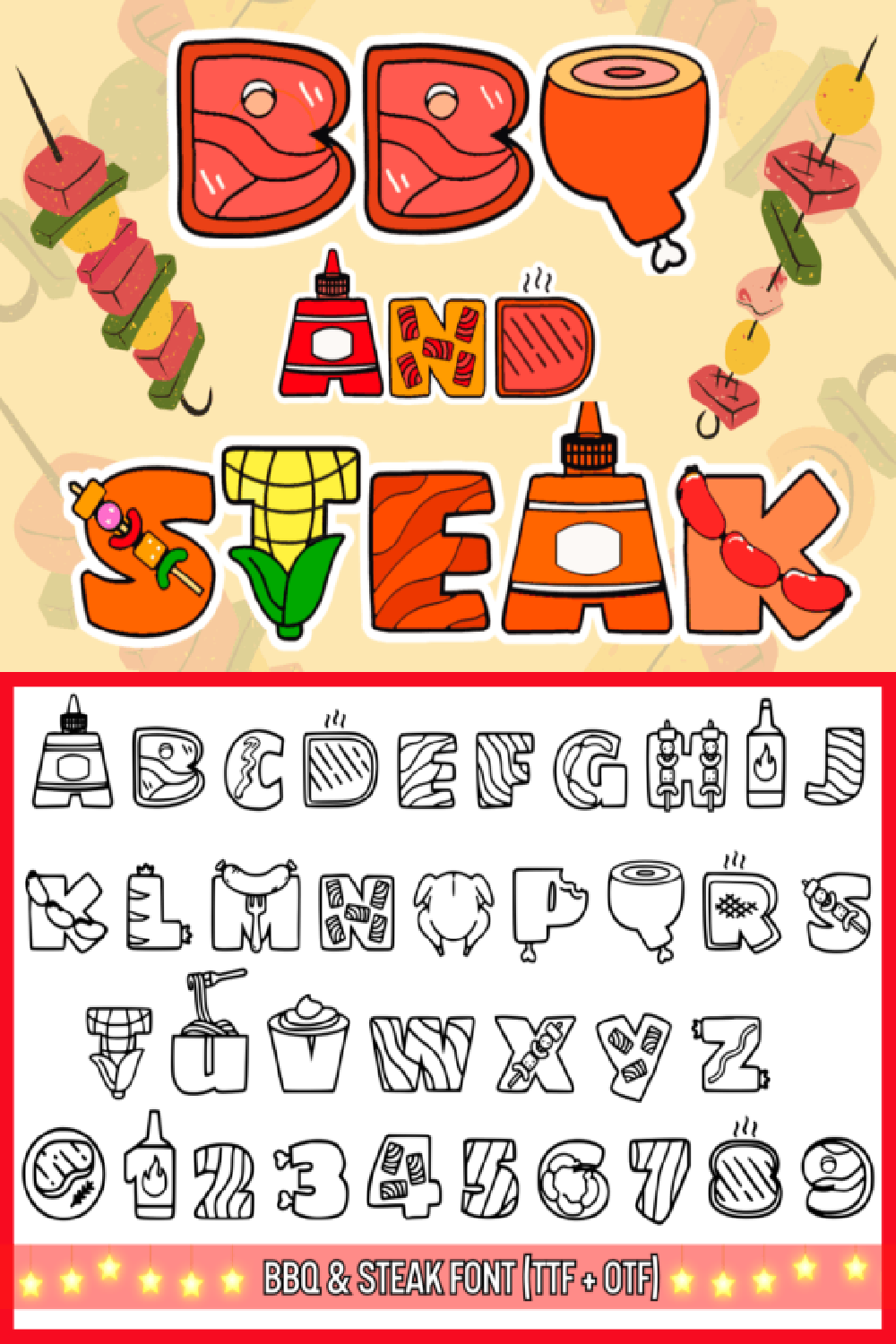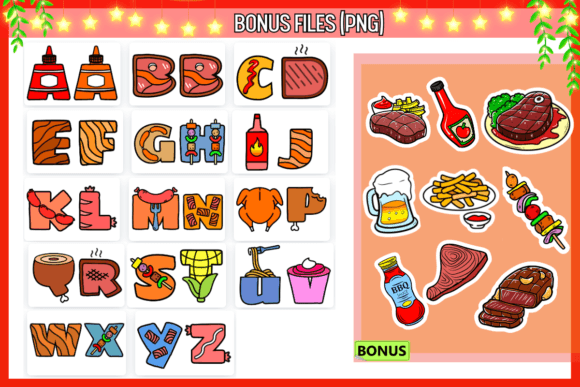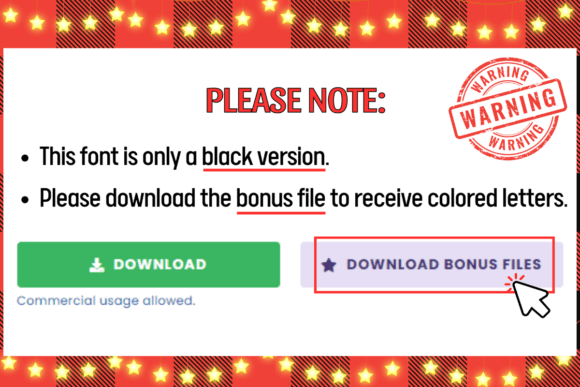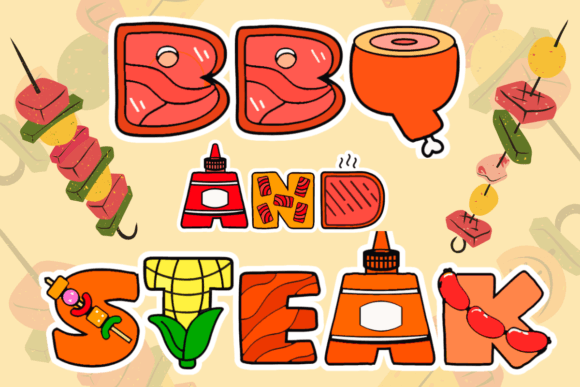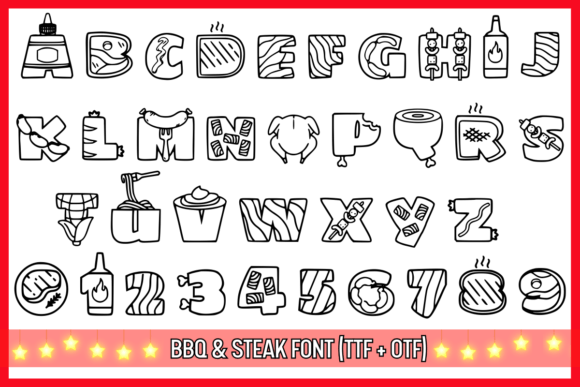
Bbq and Steak Font
About the Bbq and Steak Font
Step up your design game with Bbq and Steak Font, a font that exudes confidence and style. This decorative font features letters shaped like delicious BBQ and steak. Each letter is designed to look like it’s made from juicy, grilled meat. The letters are bold and mouth-watering, perfect for menus, food posters, and BBQ party invitations. PNGs of each letter are included, making it easy to use them in your designs.